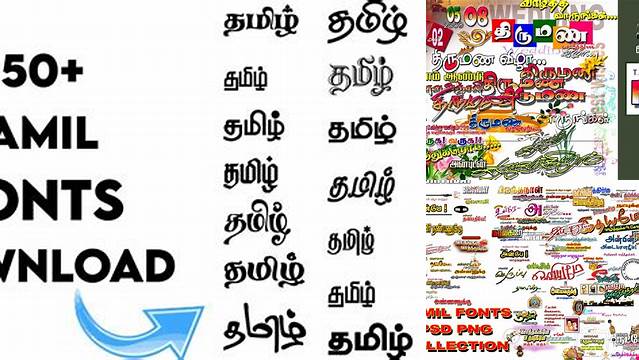
Hey guys! Are you on the hunt for stylish Tamil fonts to spice up your Photoshop projects? You've come to the right place! In this article, we're diving deep into the world of Tamil typography, exploring where you can find amazing fonts for free and how to make the most of them in your designs. We’ll also cover the importance of choosing the right font to ensure your message not only looks great but is also easily readable. So, let's jump right in and discover how to elevate your designs with stunning Tamil fonts!
Why Use Stylish Tamil Fonts?
Stylish Tamil fonts are crucial for capturing the essence of the language and culture in your designs. Whether you're crafting a poster, designing a website, or creating social media graphics, the right font can make all the difference. A well-chosen font enhances the visual appeal and readability of your text, ensuring your message is communicated effectively. Think about it: a beautifully crafted font can evoke emotions, convey a specific tone, and leave a lasting impression on your audience. Using generic fonts might get the job done, but stylish Tamil fonts add a unique cultural flair that resonates deeply with Tamil-speaking audiences. They bring authenticity and personality to your work, making it stand out in a sea of generic designs. Plus, using these fonts shows a level of attention to detail and respect for the language, which your audience will definitely appreciate. So, if you’re aiming to connect with Tamil speakers on a deeper level, investing in quality fonts is a must. Trust me, the impact is significant!
Choosing the right Tamil font involves considering several factors, such as the project's tone, the target audience, and the overall design aesthetic. For instance, a traditional event invitation might call for a classic, elegant font, while a modern social media campaign might benefit from a bold, contemporary typeface. It's also essential to ensure the font is legible across different media, whether printed or digital. A font that looks stunning in large headlines might become illegible in smaller body text. Think about the message you're trying to convey and select a font that complements it. Is it a formal announcement? A friendly greeting? A powerful statement? The font should align with the message's spirit. Experiment with different styles and weights to see what works best. Don't be afraid to mix and match fonts, but do so judiciously. A good rule of thumb is to limit yourself to two or three fonts per project to maintain visual harmony. And most importantly, always test the font to make sure it displays correctly across different devices and platforms. Nothing is more frustrating than designing something beautiful only to have it rendered poorly due to font compatibility issues. With a bit of careful consideration, you can choose the perfect Tamil font to make your designs truly shine.